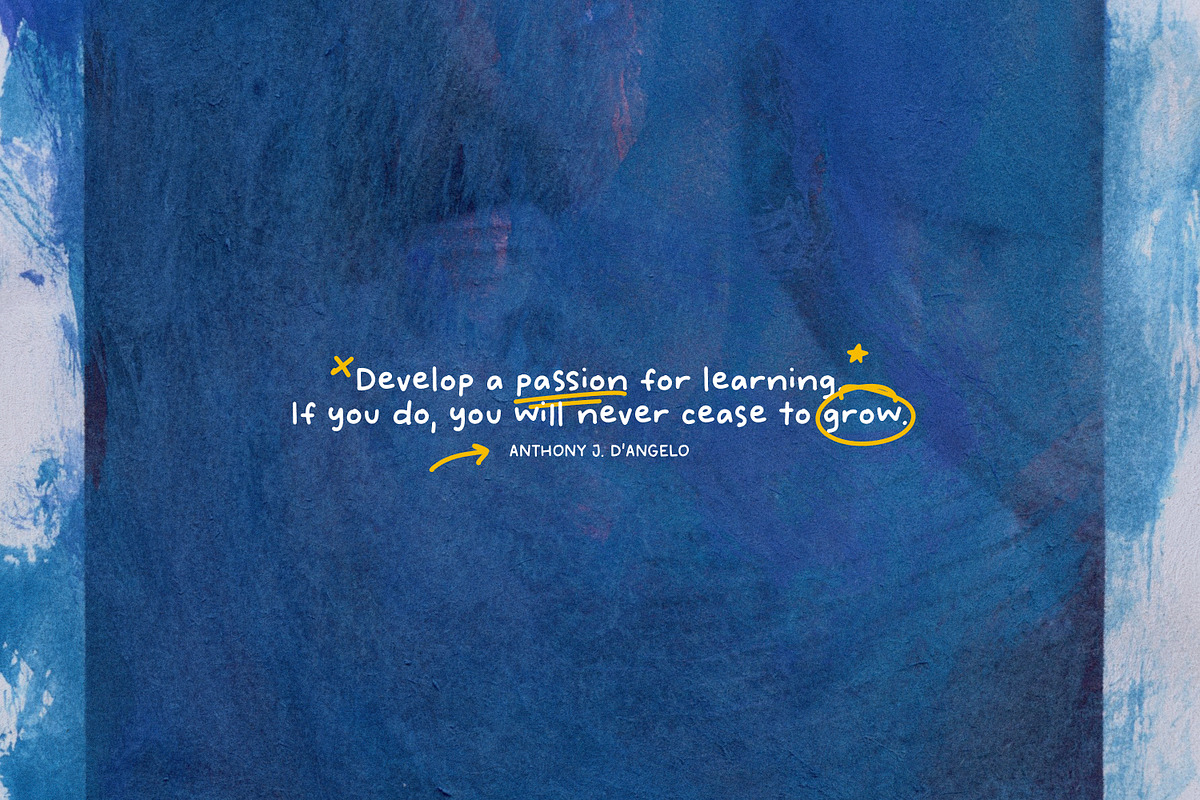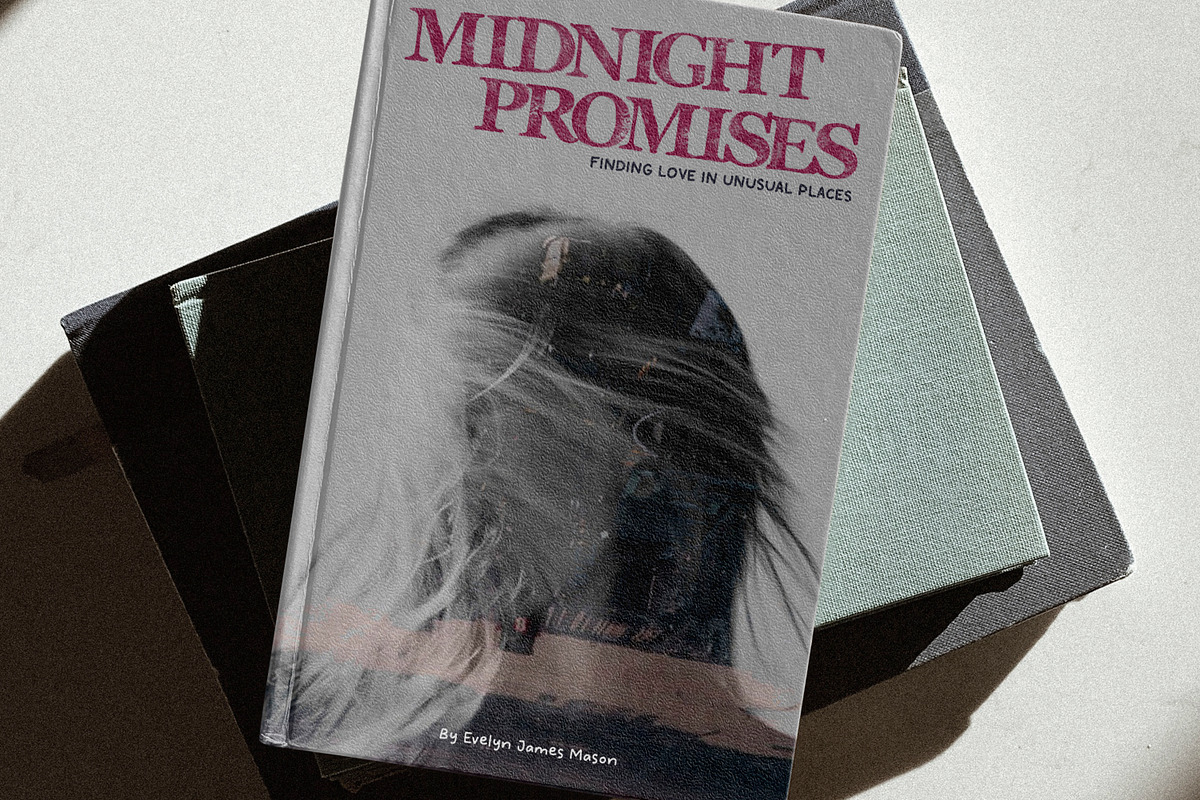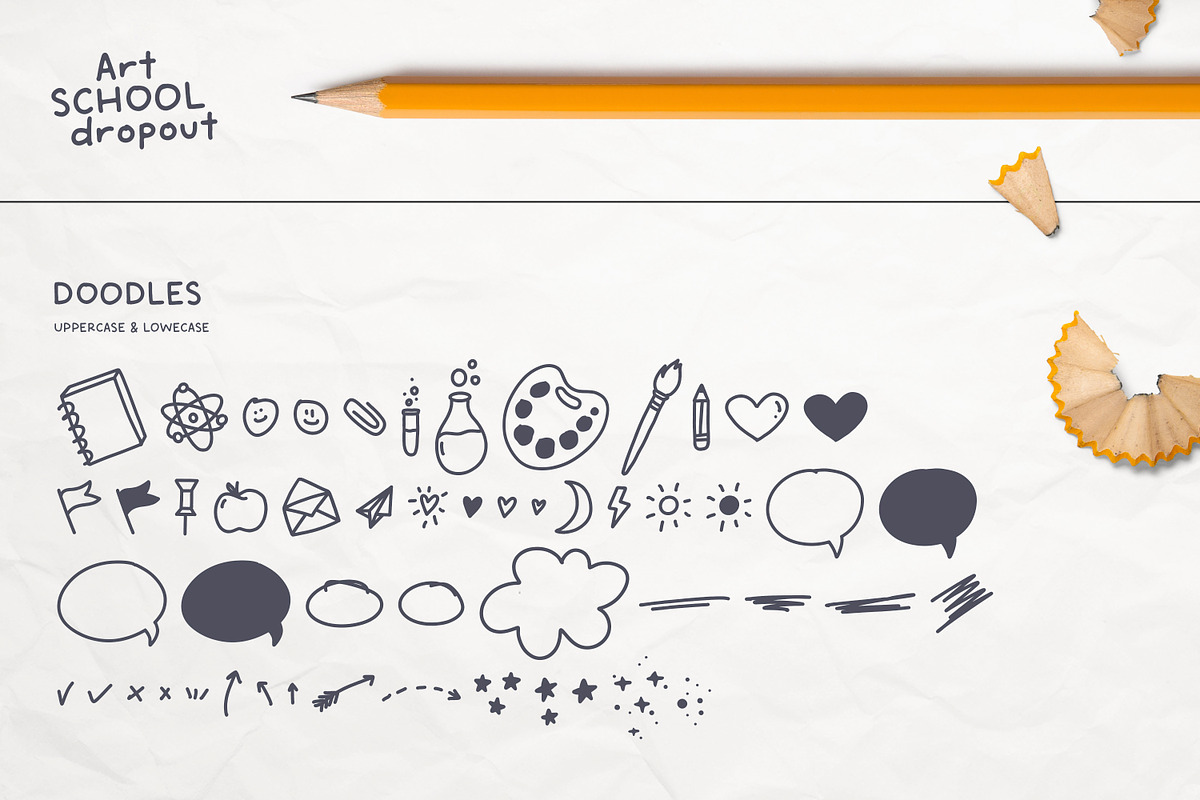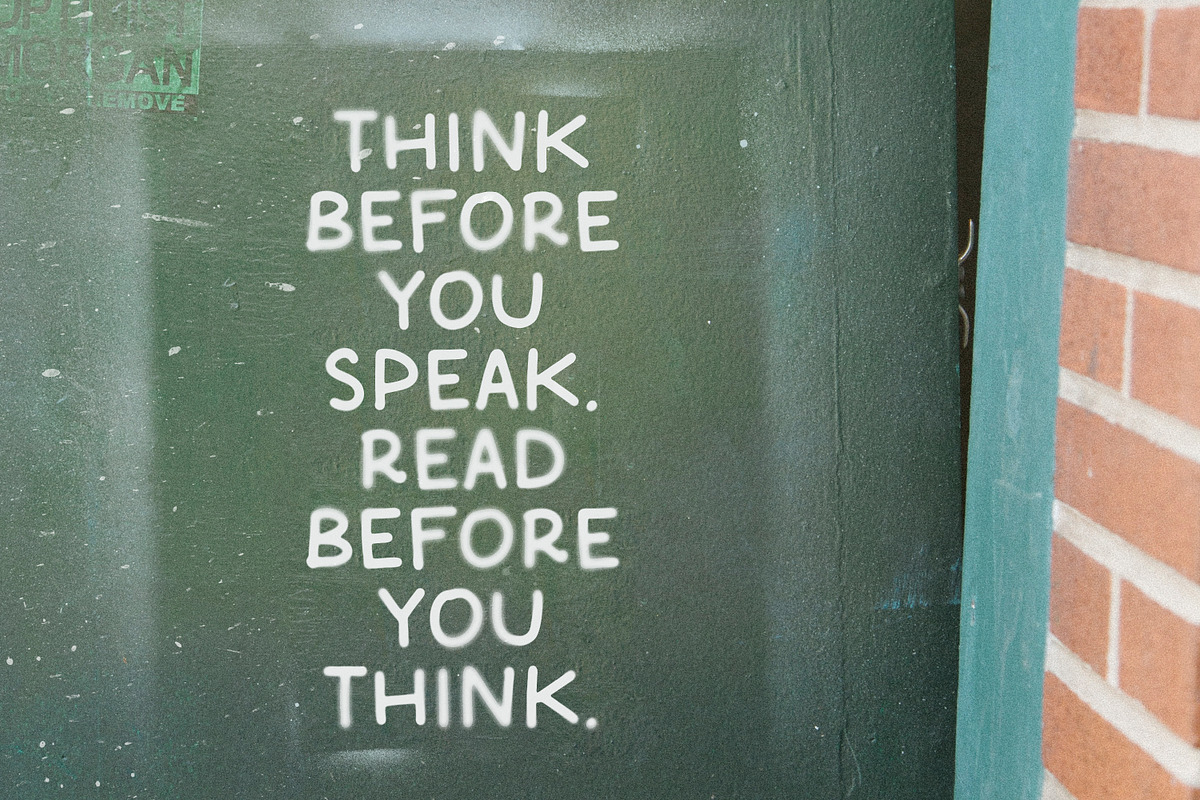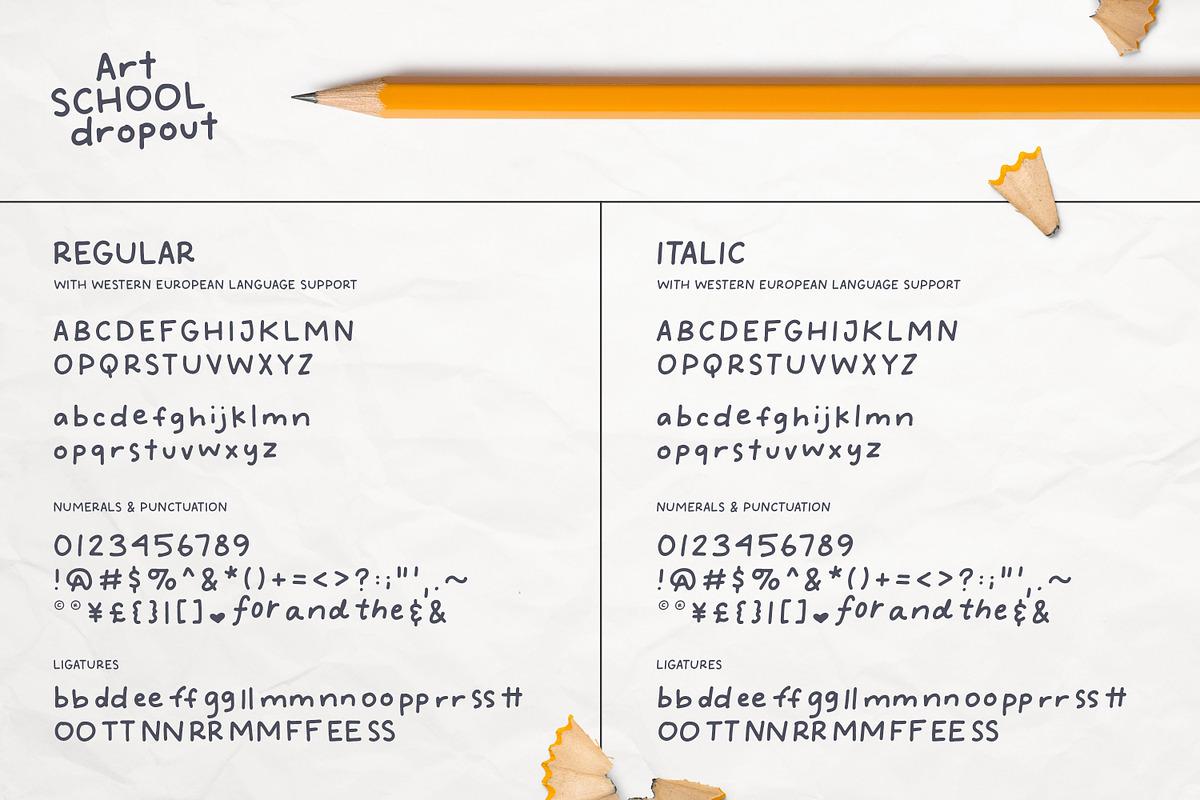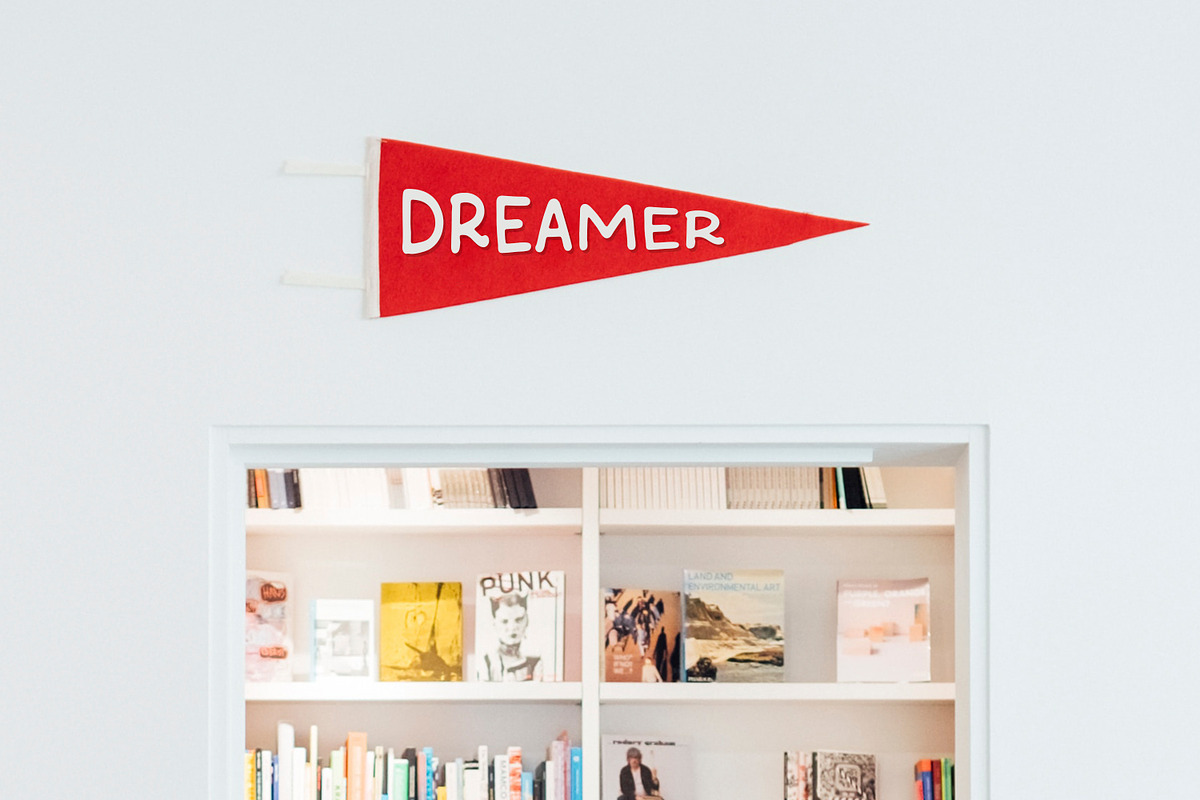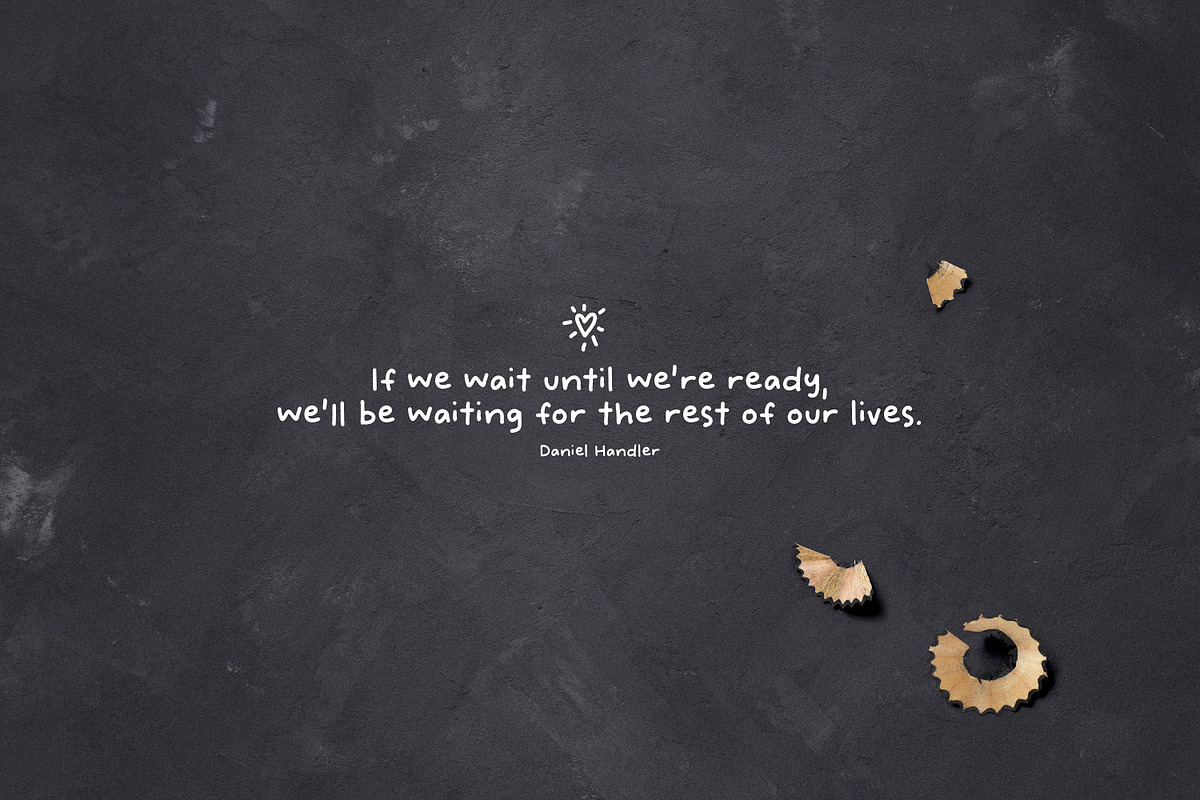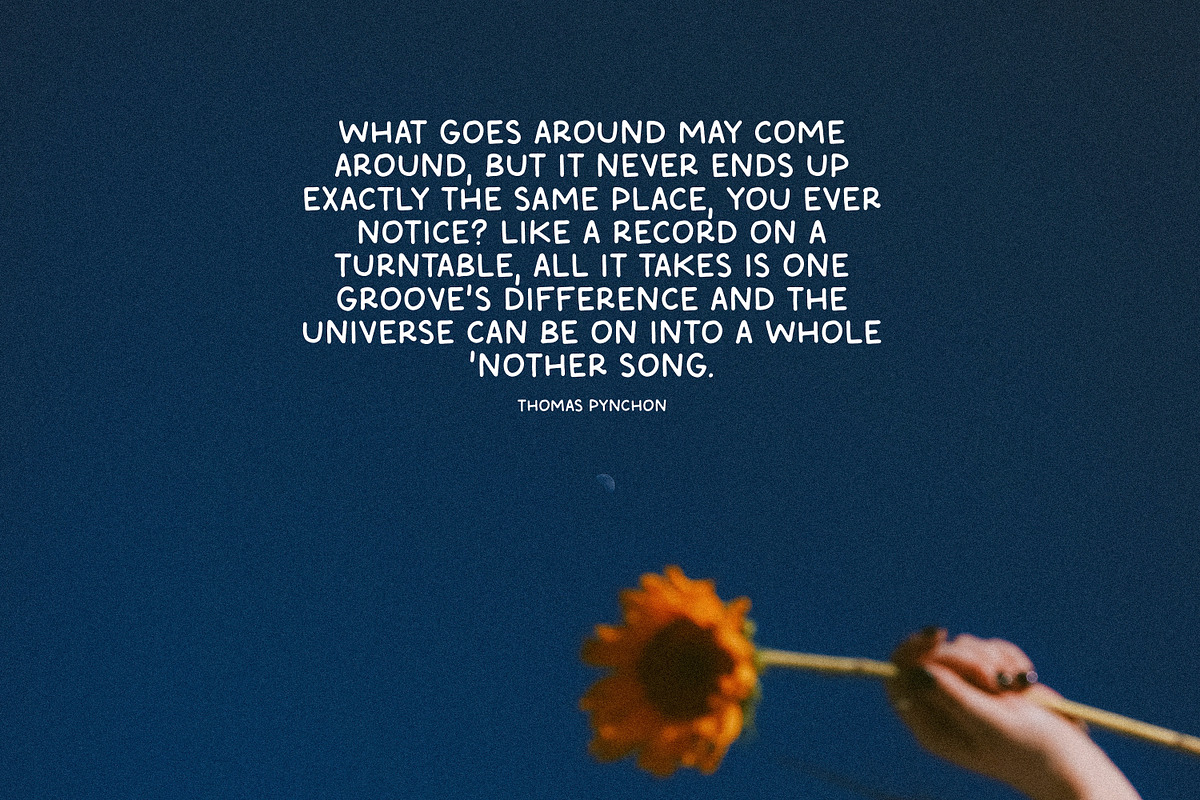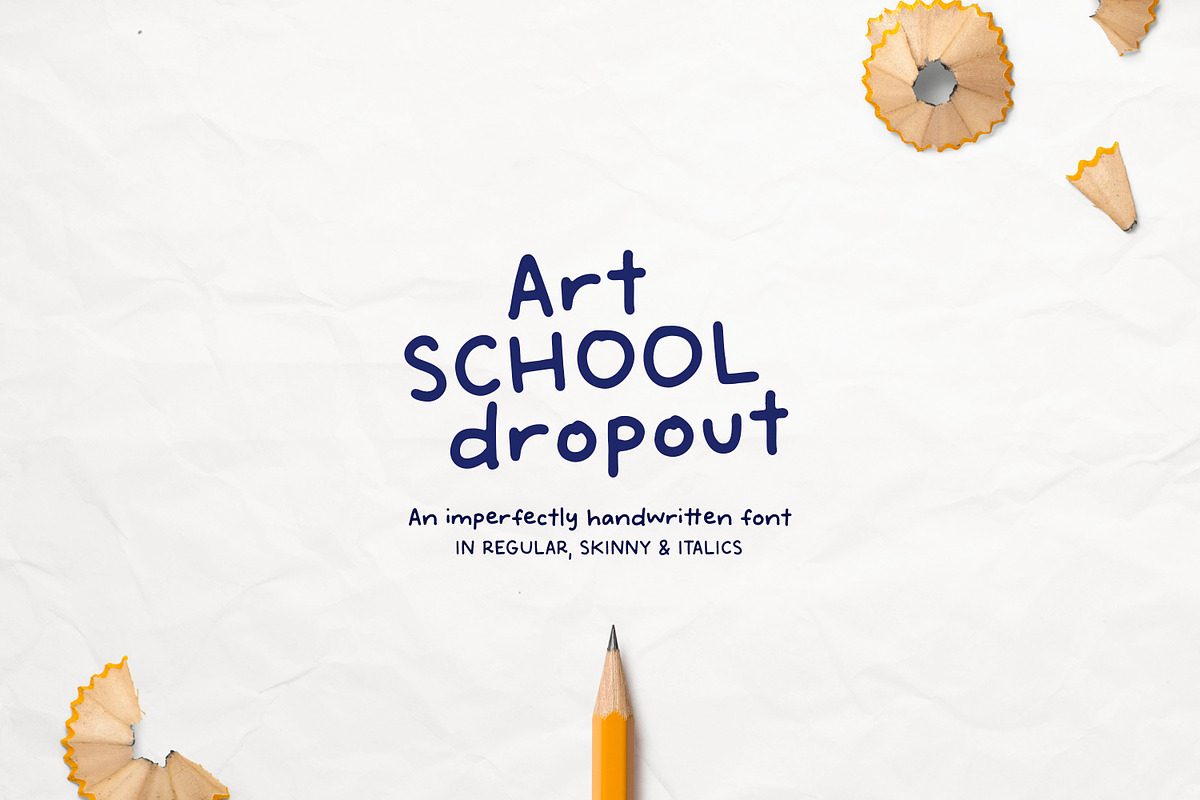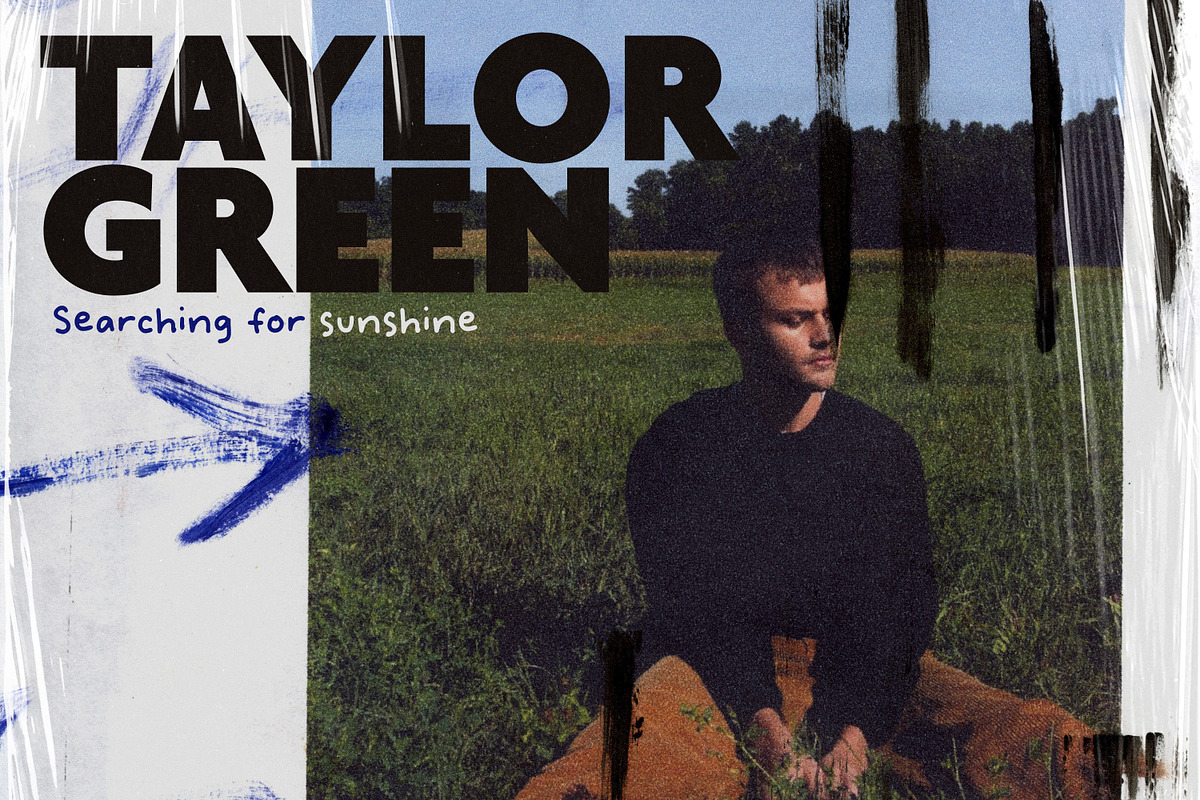
Art School Dropout + Doodles
School is back in session! 🙌🏼 Introducing, Art School Dropout, a smooth, handmade sans-serif with upper and lowercase characters in 4 versions, including 52 doodle elements. Looks super adorable on social media posts, books, magazine subtext, greeting cards, stickers & more!
- Select Upper & Lowercase Ligatures
Please Note these fonts are SMOOTH, and will cut awesome with Circuit or Silhouette.